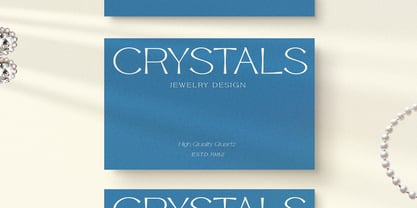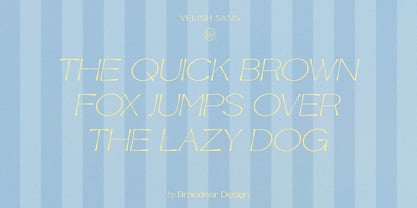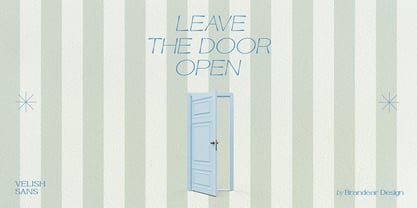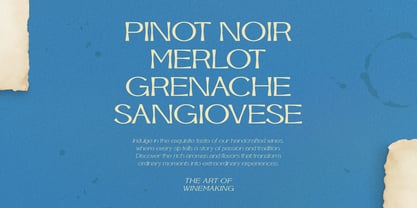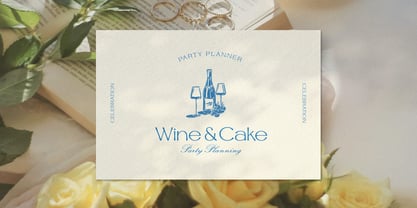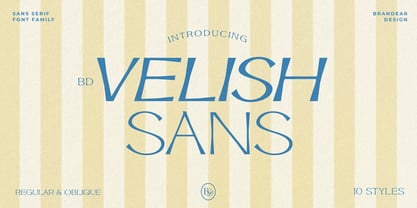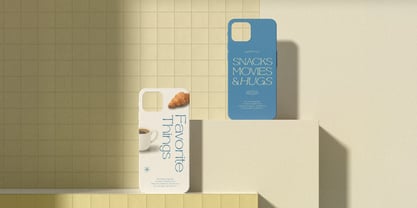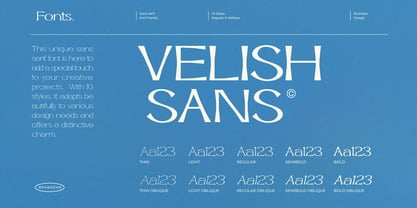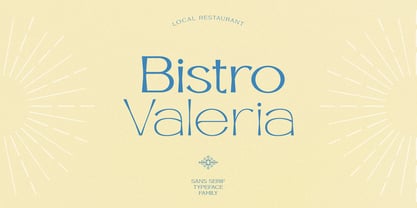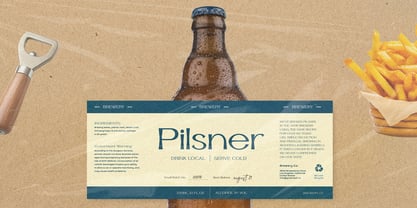
BD Velish Sans
Die Schriftfamilie BD Velish Sans wurde von Jibin Kim entworfen und von Brandear Design veröffentlicht. BD Velish Sans enthält 10 Stile und Familienpaketoptionen. Mehr über diese Familie
This unique sans serif font is here to add a special touch to your creative projects. With 5 different weights, it adapts beautifully to various design needs and offers a distinctive charm.
When you use the lighter weights, you can achieve a sleek, minimal look, while the bolder weights create an eye-catching and elegant design. Velish Sans balances modern aesthetics with sophisticated flair, making it perfect for everything from branding and logos to editorial work.
Whether you want a clean and simple style or a bold and impactful statement, Velish Sans is ready to transform your typography. Each weight is designed to enhance readability while adding a unique character to your work.
So, unleash your creativity with BD Velish Sans! ✨